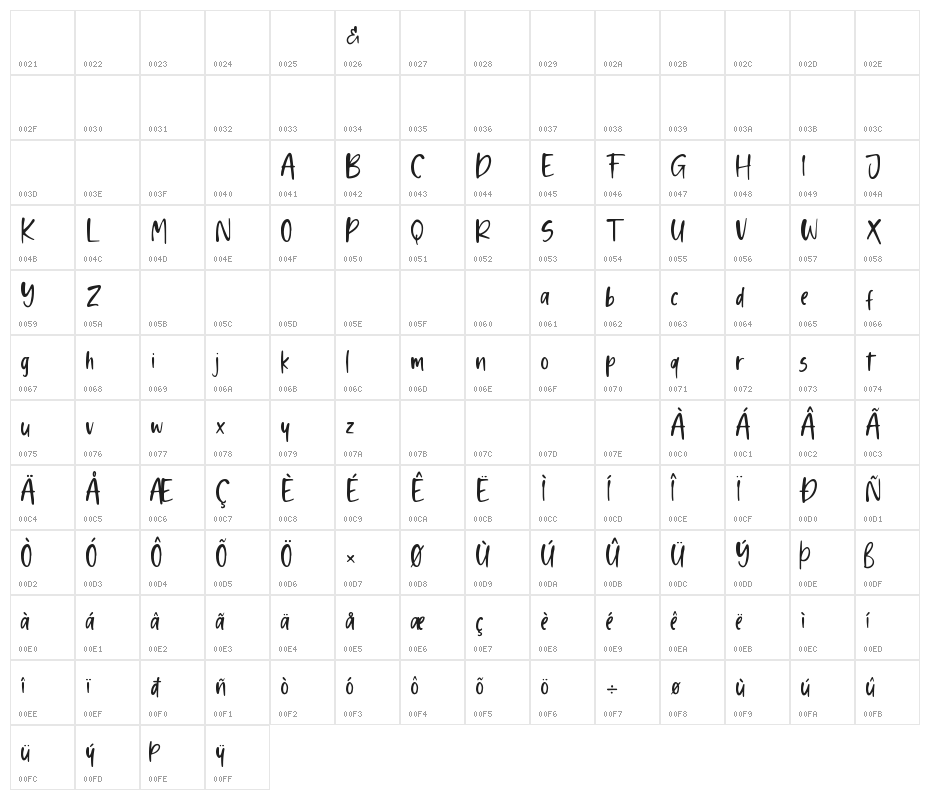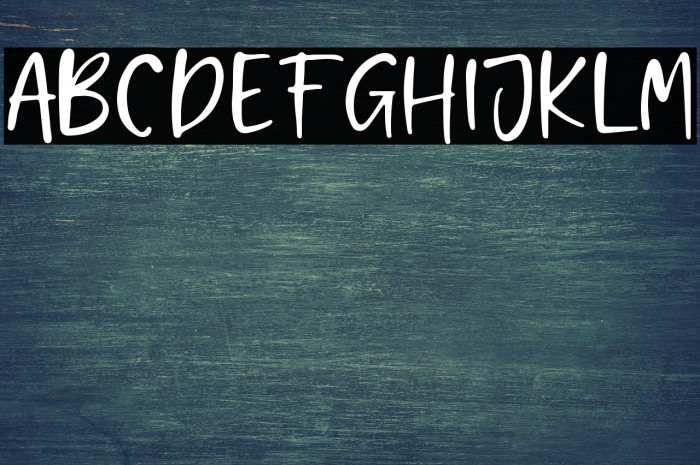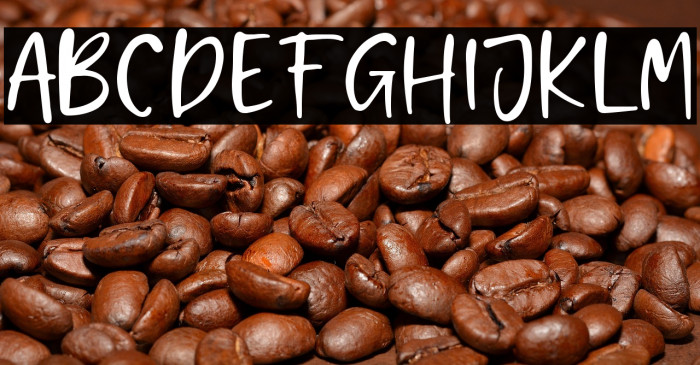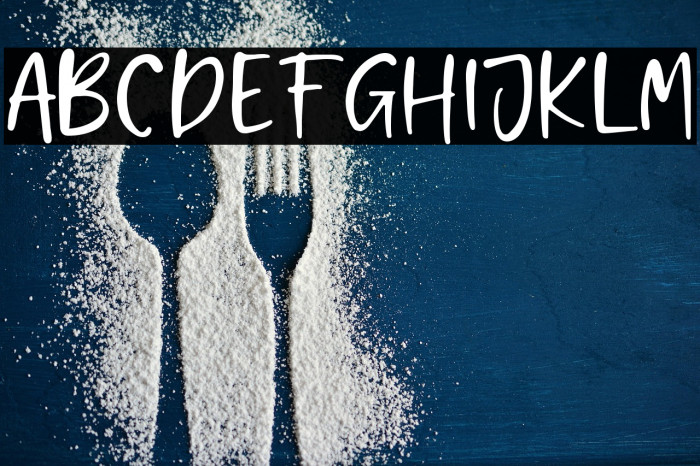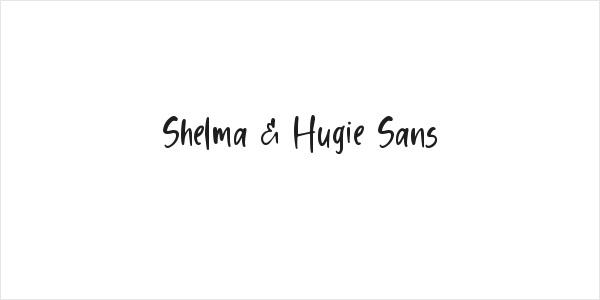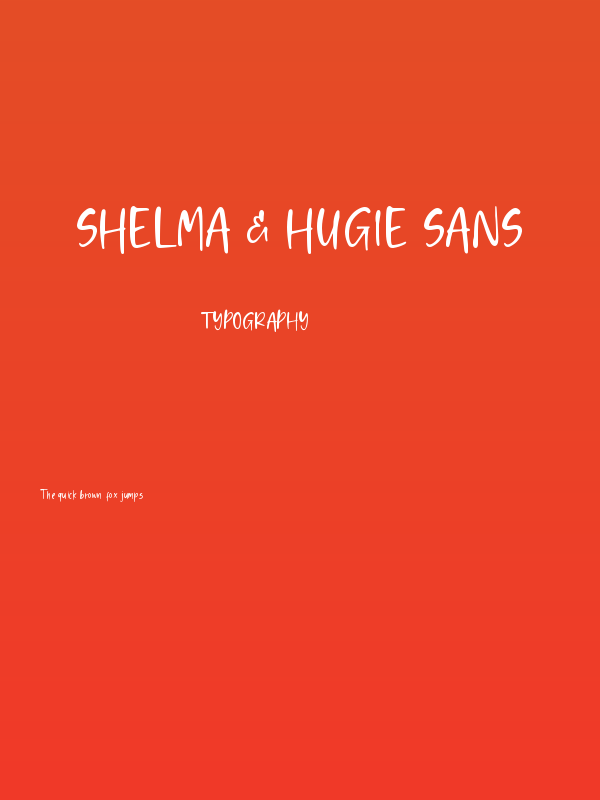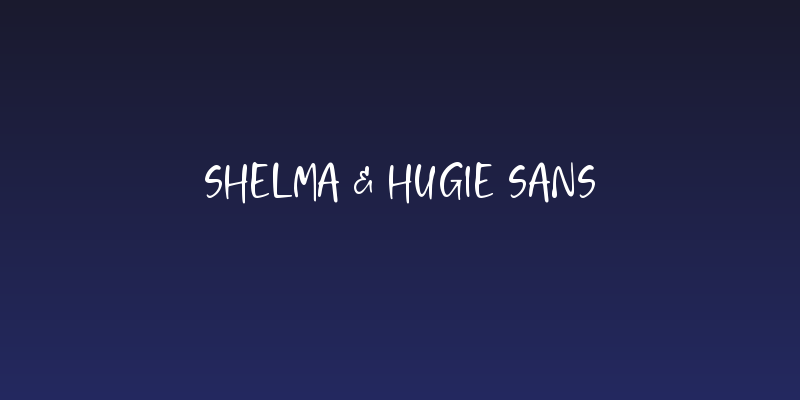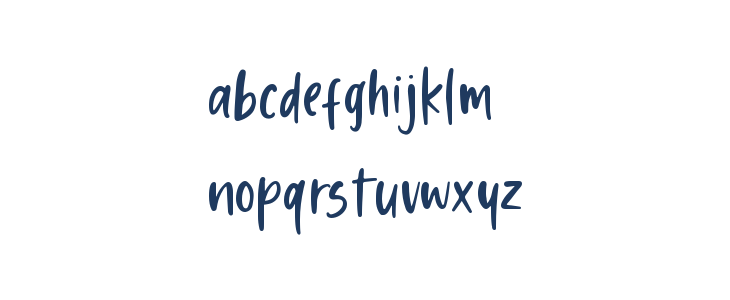
Shelma & Hugie Sans Font
Shelma & Hugie Sans Description
This font features a playful and casual handwritten style, characterized by its smooth curves and slightly irregular strokes that give it a personal touch. The uppercase letters are bold and rounded, creating a friendly and approachable appearance. The lowercase letters maintain a consistent flow, with some letters extending slightly below the baseline, adding to its informal charm. The ampersand is uniquely styled, further emphasizing the font's creative and artistic nature. Overall, this font is perfect for projects that require a warm and inviting feel.
| Proposed Projects | Ideal for greeting cards, invitations, personal branding, and creative projects that require a friendly and informal touch. |